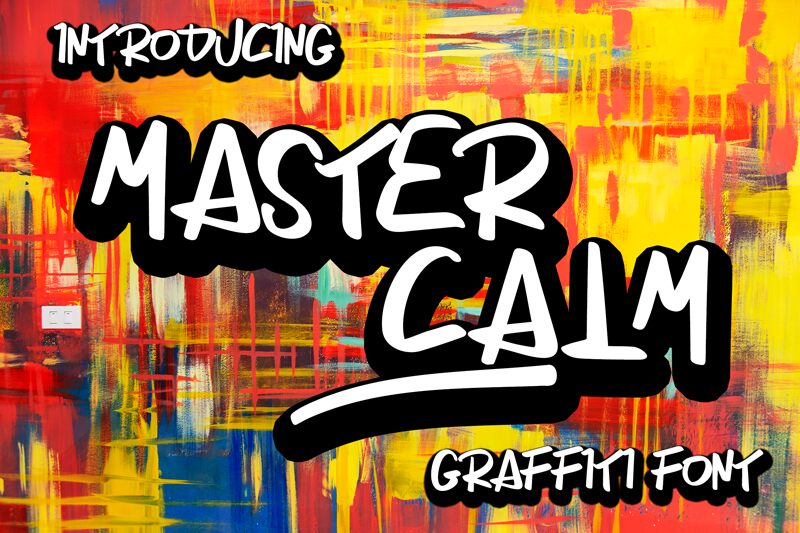
The Master Calm graffiti font, crafted by designer Dian, is a unique and edgy semi-light typeface that is perfect for various creative projects. Its bold and expressive strokes are ideal for designing posters, flyers, logos, and album covers that require a touch of grit and attitude. The semi-light weight of the font adds a subtle elegance to any design while maintaining its street-inspired flair. Whether you're creating streetwear apparel or urban-themed branding campaigns, Master Calm graffiti font will make your message stand out from the crowd. Give your designs an edge with this one-of-a-kind typeface!